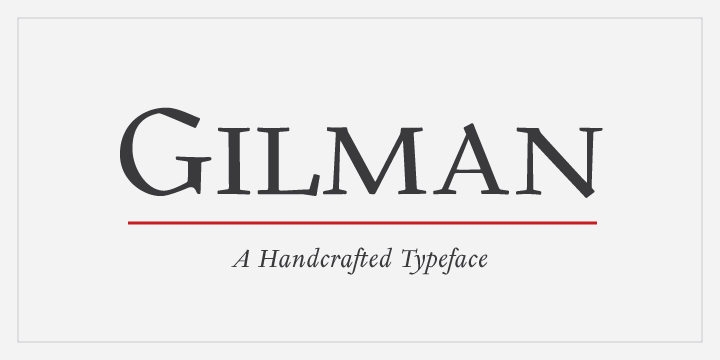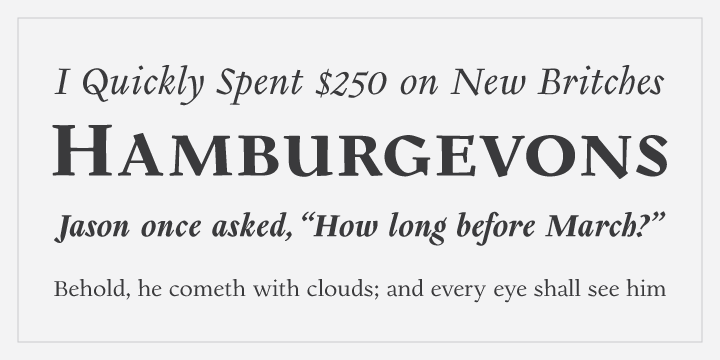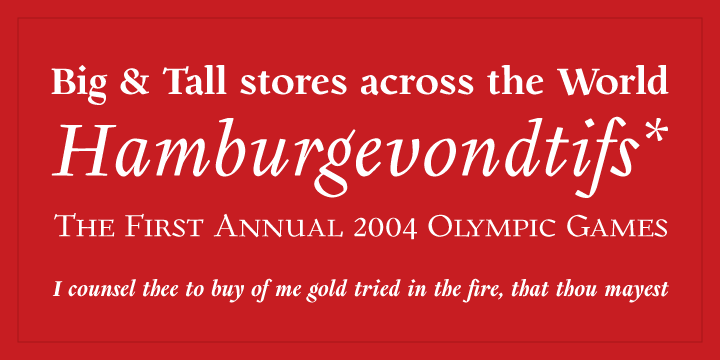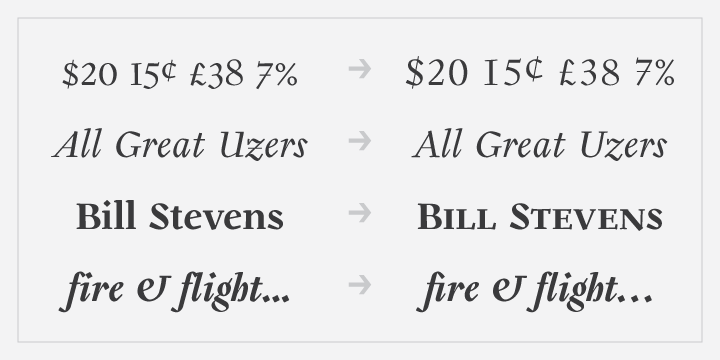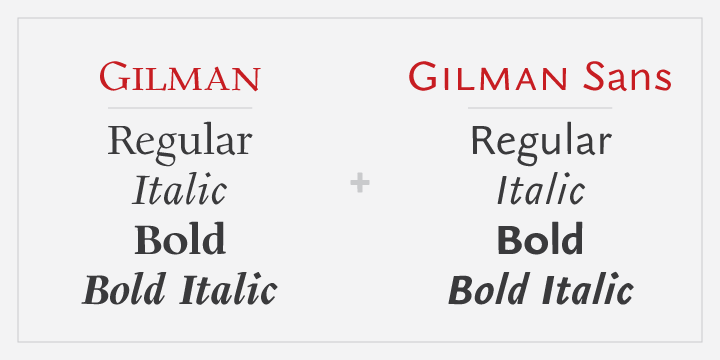
Gilman
Font Family by Miller Type Foundry
The idea for Gilman started simple enough, a serif typeface that works well for large amounts of text. However, after many struggles creating a quality typeface digitally, I decided to first draw the complete alphabet by hand on paper, and then trace that digitally. The result is a unique workhorse typeface with a subtle ?human touch? that is very rare in this modern technological age.
Gilman has extensive language support and comes with many opentype features like true small caps, tabular lining figures, stylistic alternates, ligatures and more. Gilman Sans (derived from the serif) is an excellent compliment and works together harmoniously with Gilman on the page.